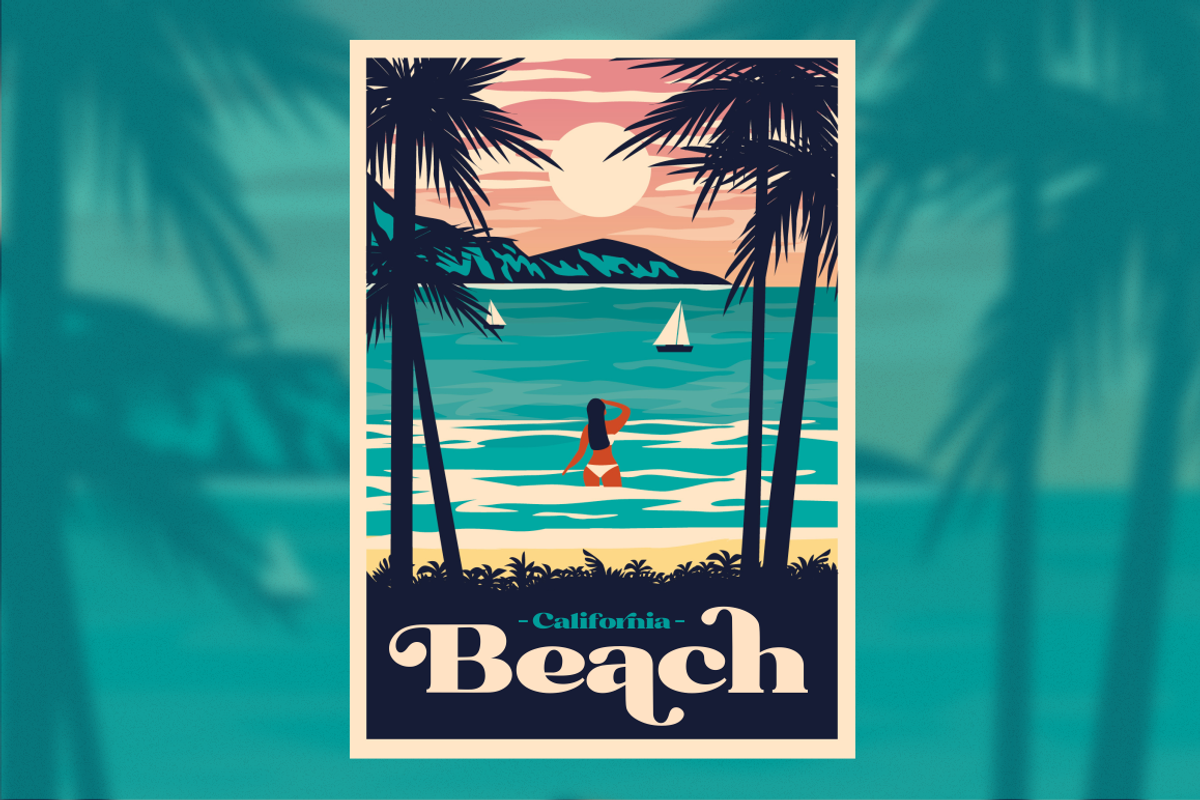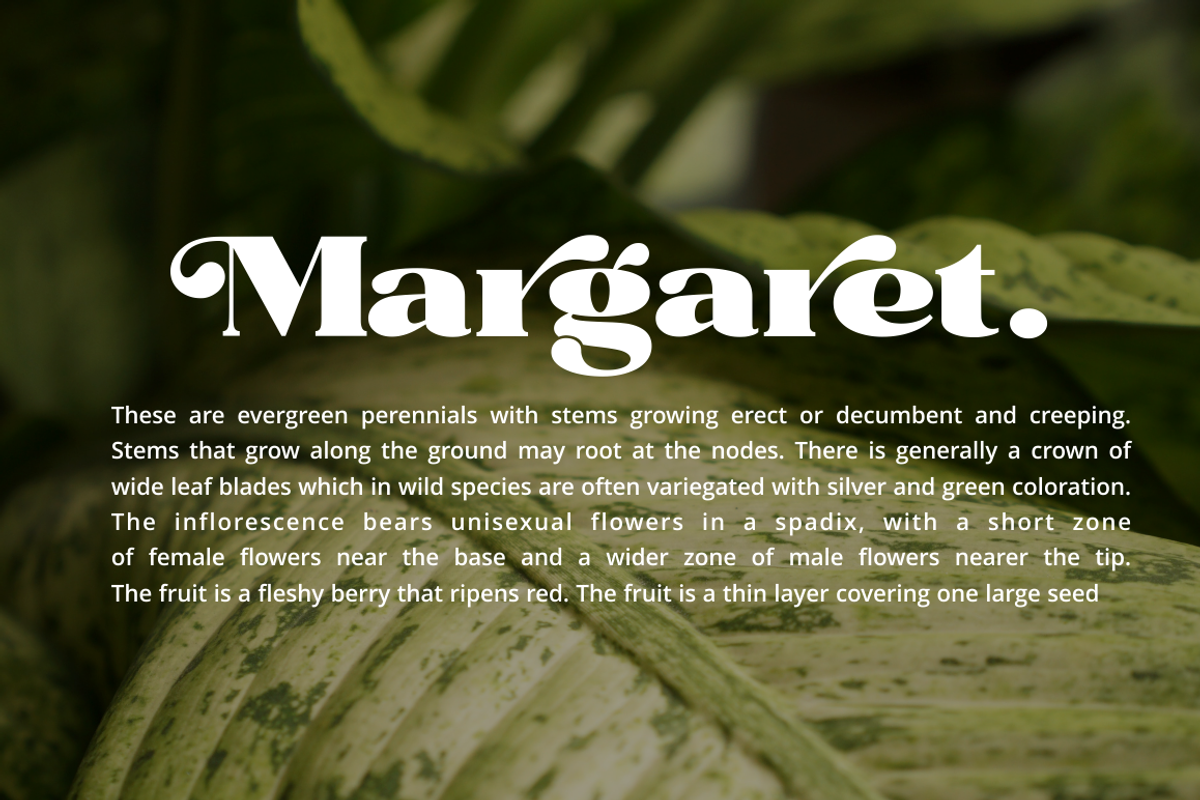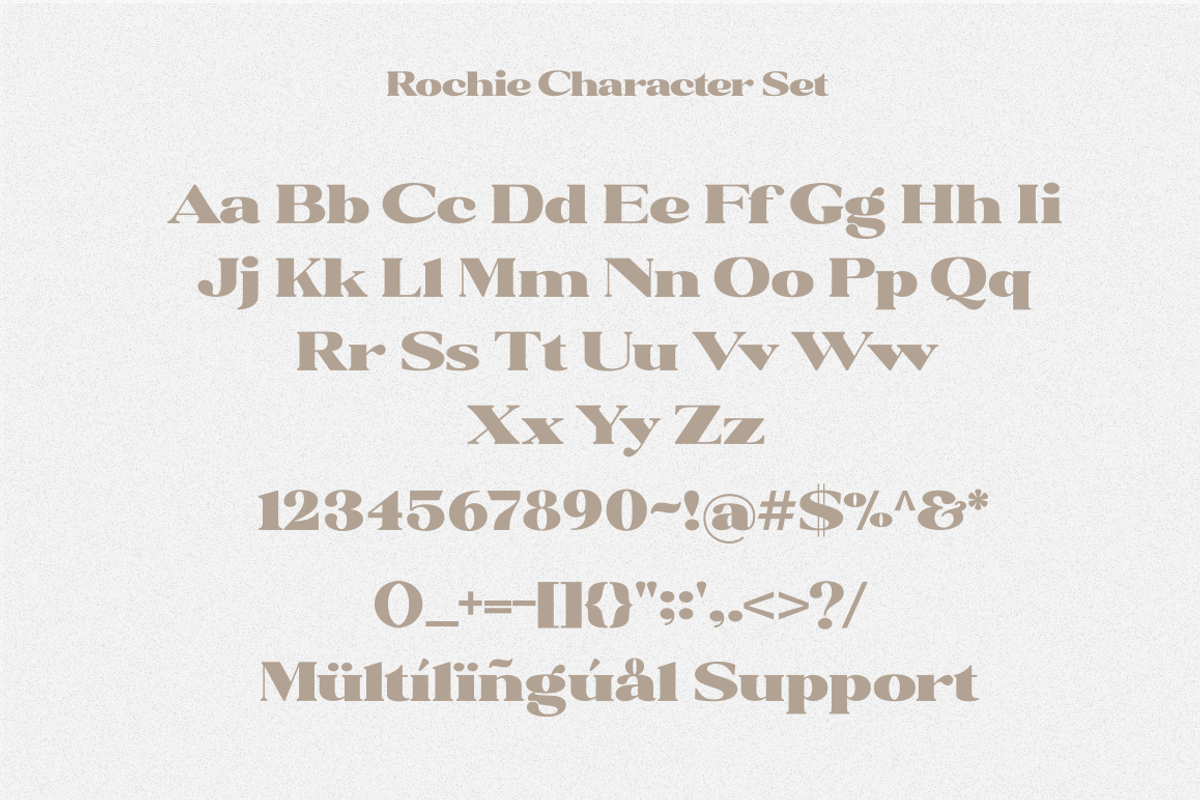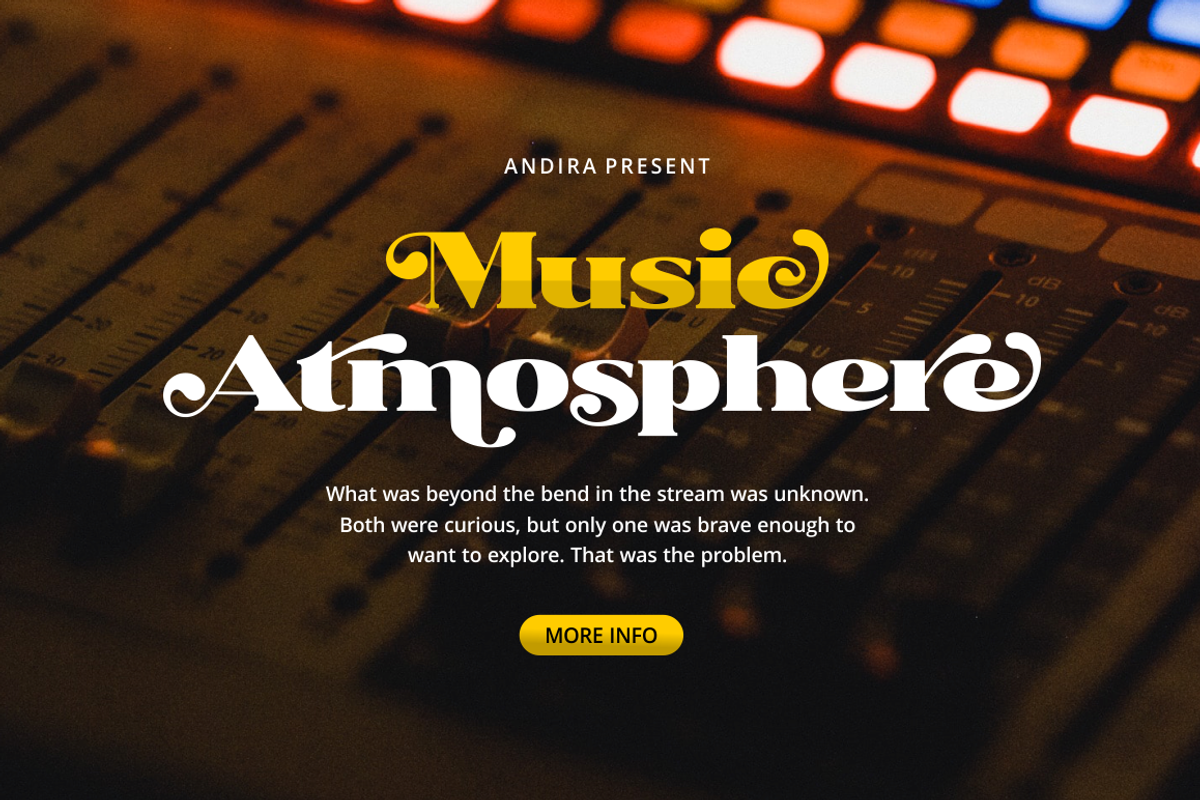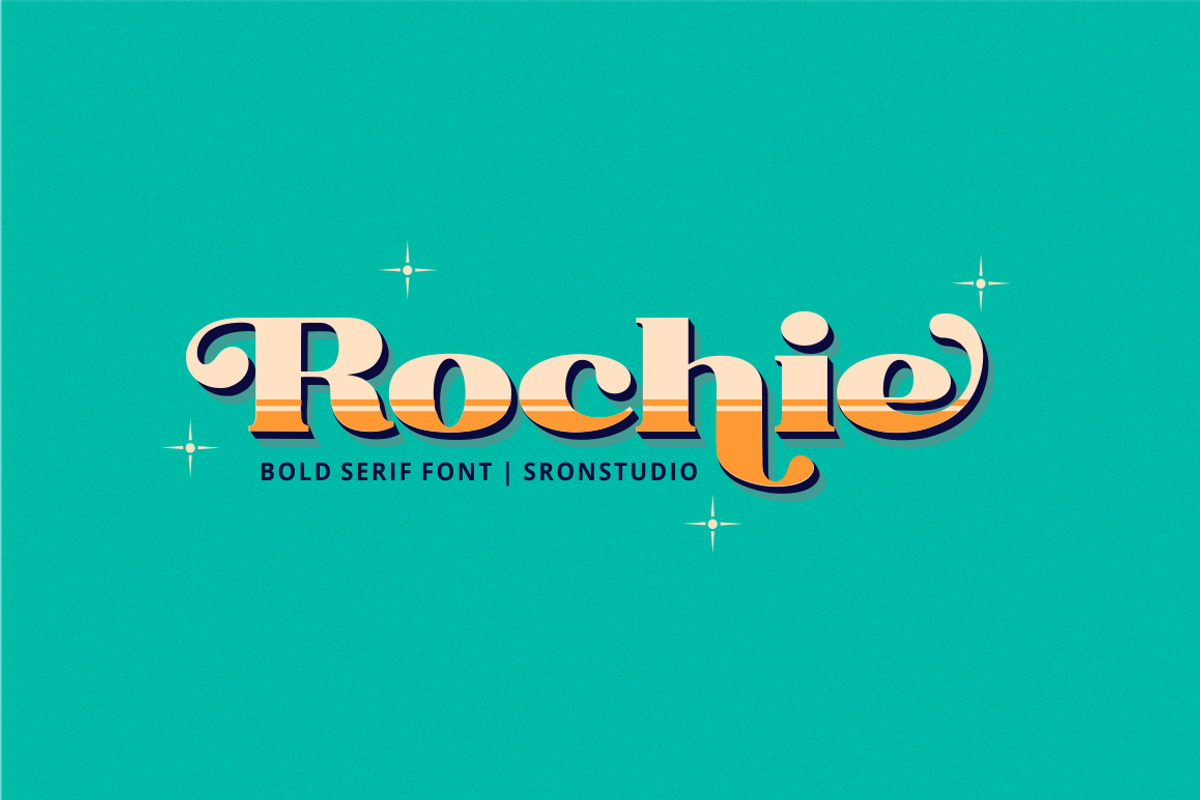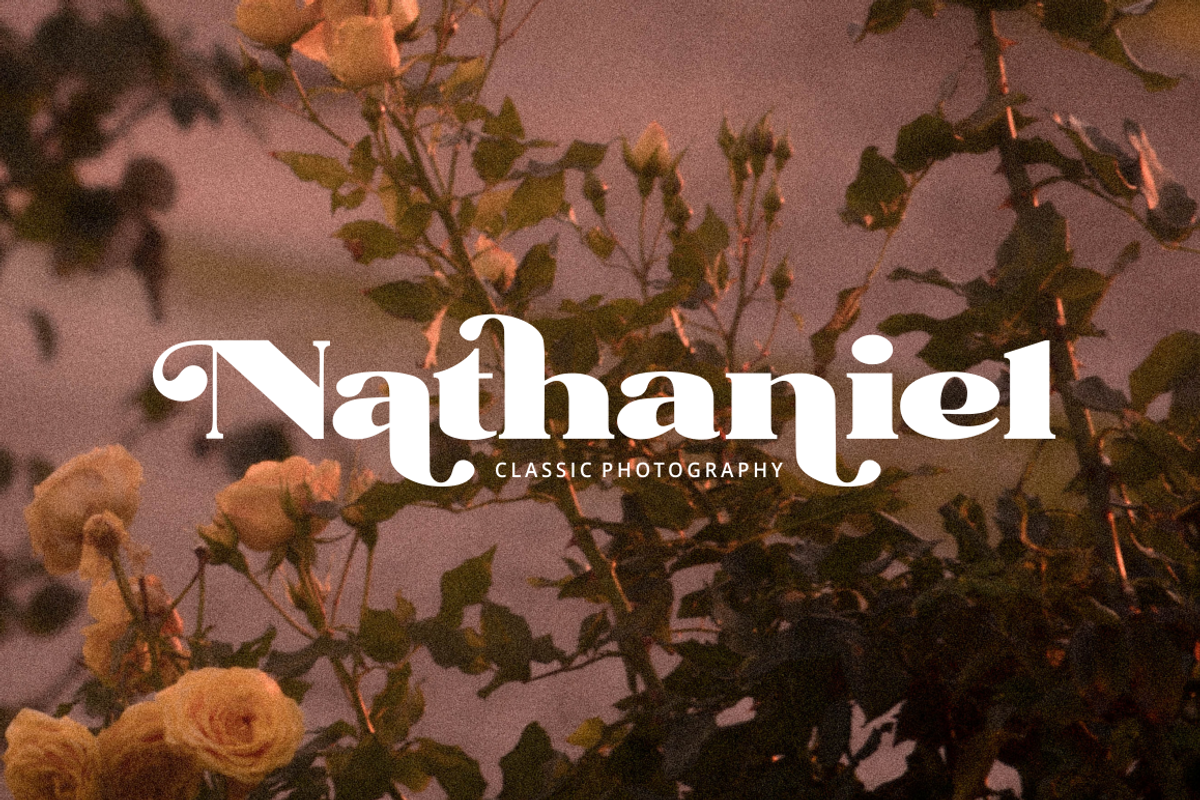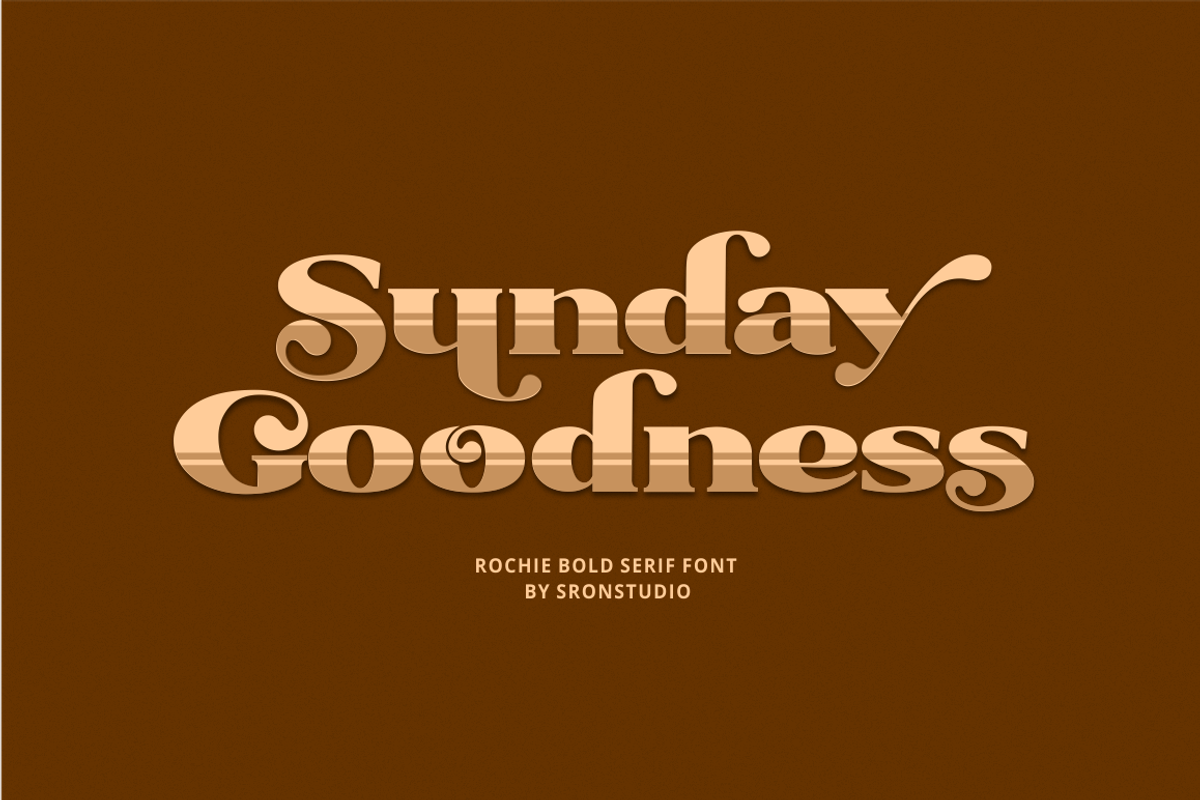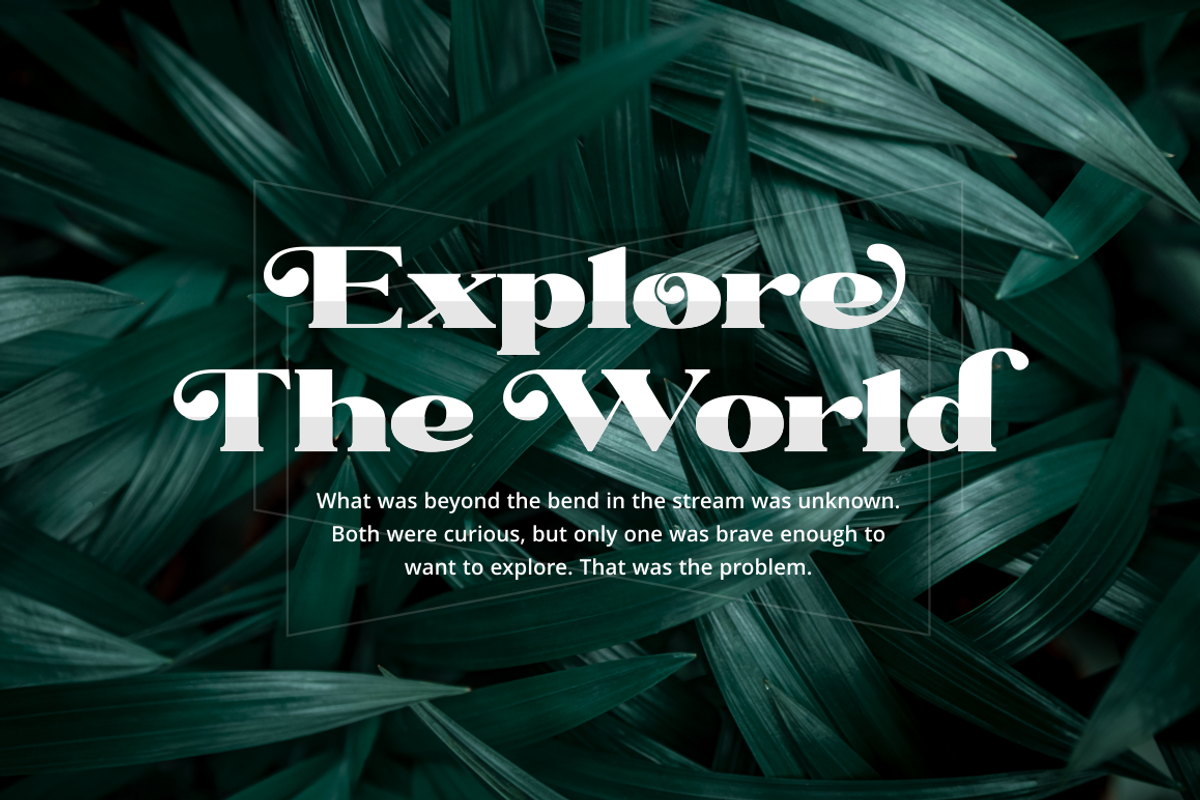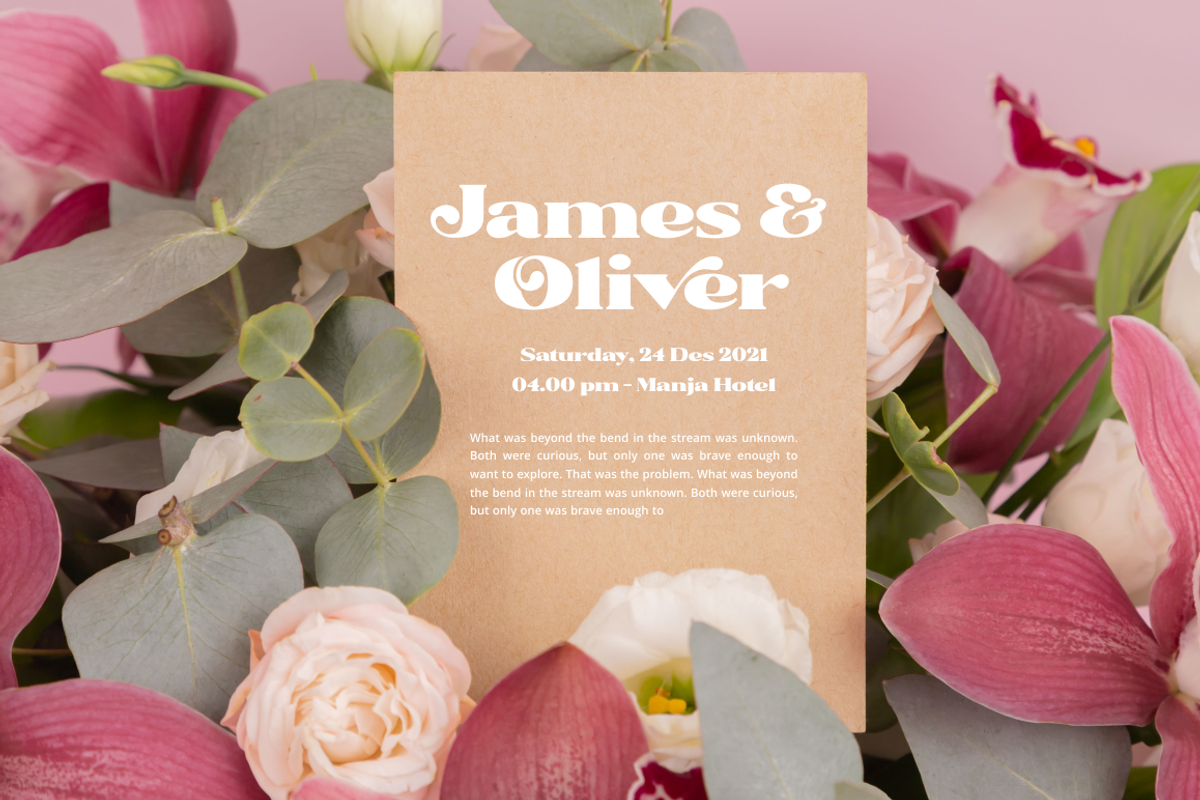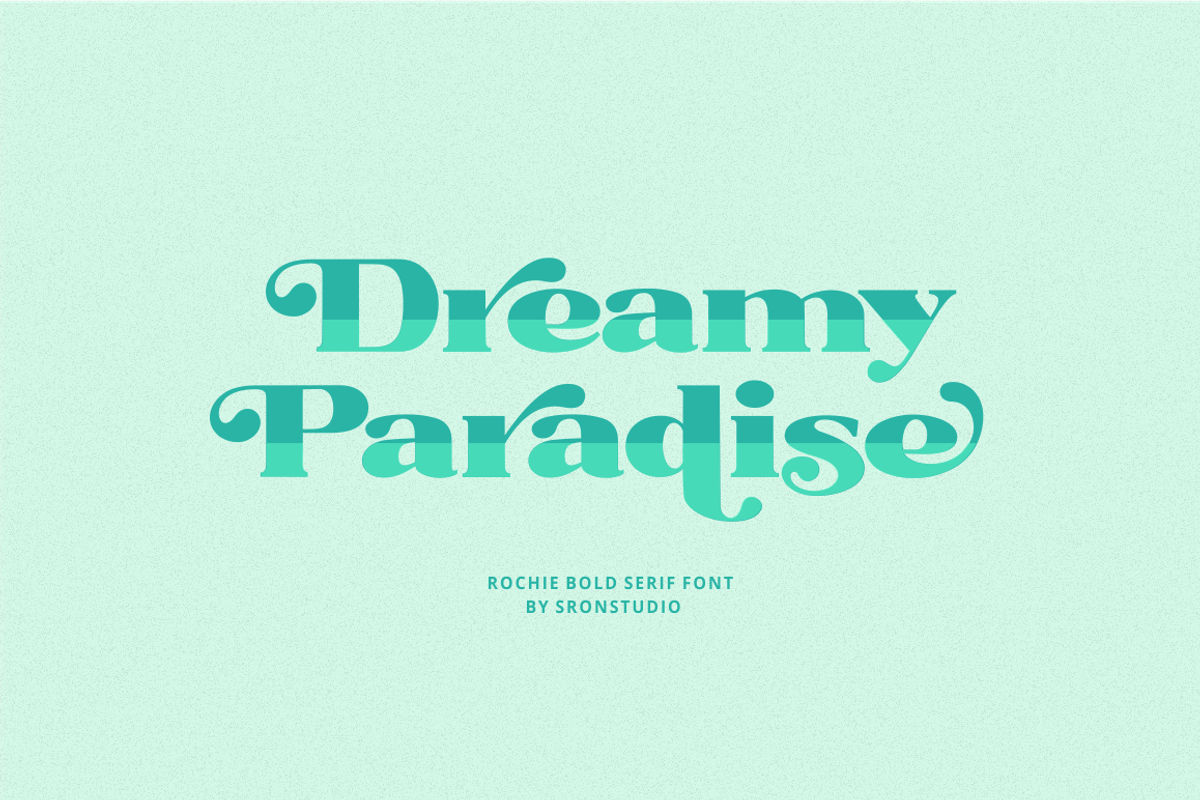
Rochie - Bold Retro Serif Font
Rochie – Bold Retro Serif Font, this font perfect for branding, invitation, stationery, wedding designs, social media posts, advertisements, product packaging, product designs, label, photography, watermark, special events, and more.
- Uppercase and lowercase letters
- Swash alternates
- Multilingual symbols, numerals, and punctuation